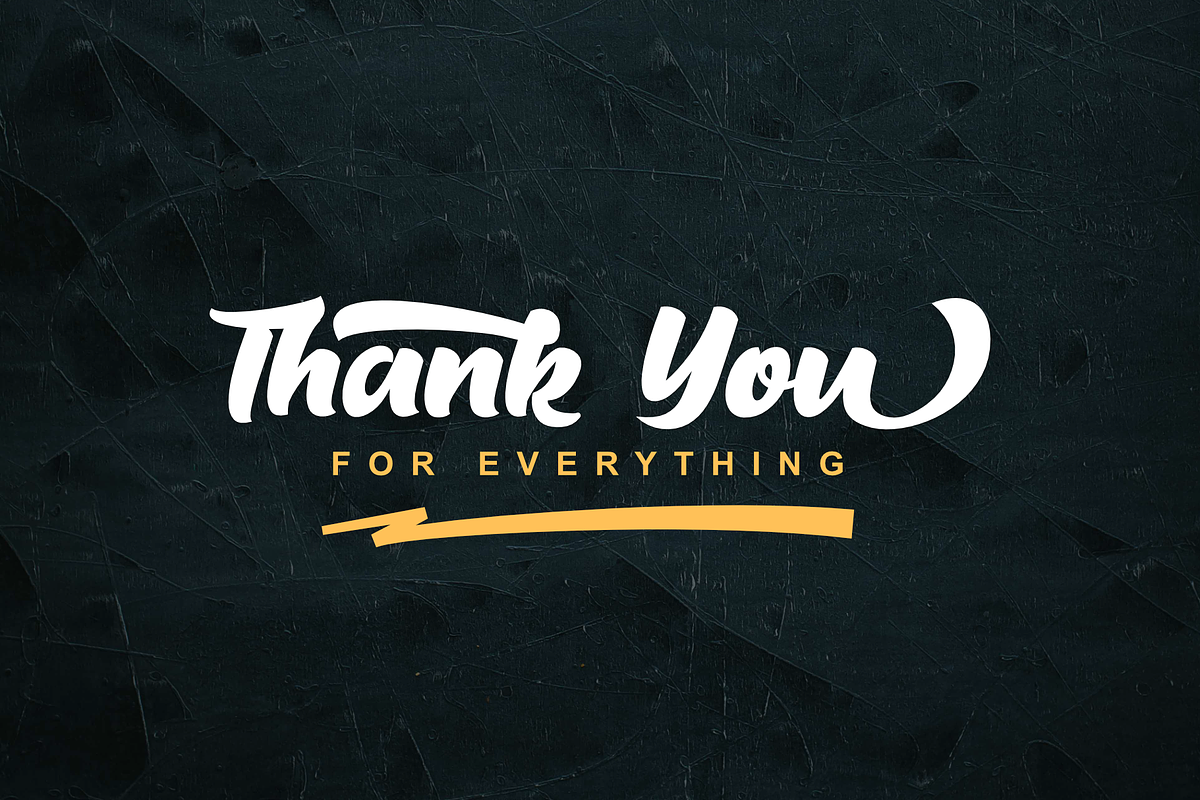
Milton Keynes
Are you looking for modern style fonts? Milton Keynes is the answer
Milton Keynes is a modern thick font that comes from hand scratches so it is great for branding logos, t-shirt designs, posters, business cards, typography, newspapers, other design projects and many other media that can be manipulated with this font.
- Opentype Features (Alternate, Swash, Stylistic Set)